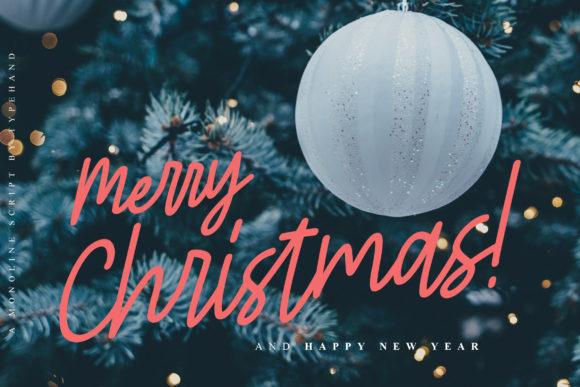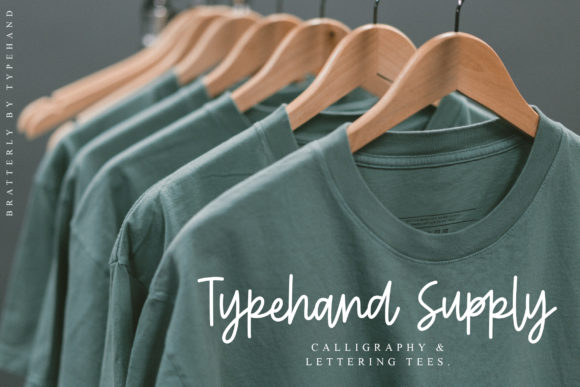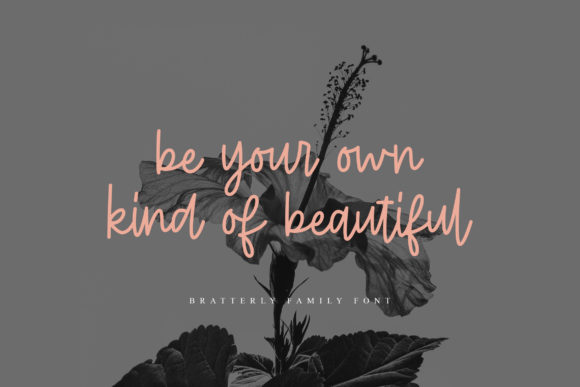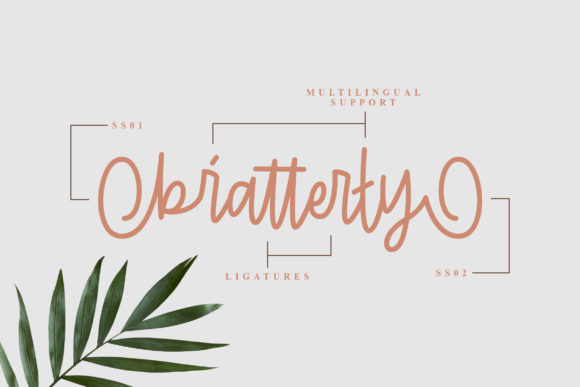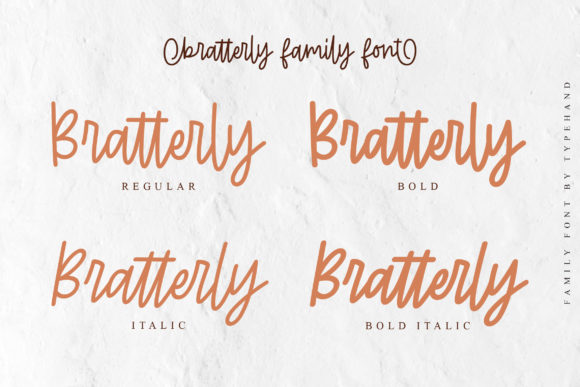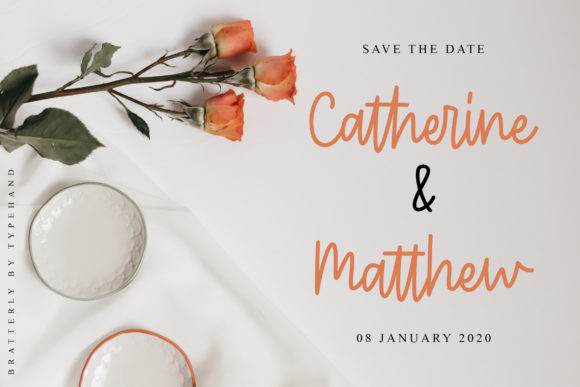
Discover the Charm of Bratterly Font: Elevate Your Designs with Authenticity
Are you tired of using the same old fonts in your designs? Look no further than Bratterly Font, a beautiful and simple script that radiates authenticity. With its unique look and feel, Bratterly is the perfect choice for designers and crafters looking to turn any design idea into a true standout. In this article, we’ll dive into the world of Bratterly Font, exploring its features, benefits, and uses, as well as provide tips and inspiration for incorporating it into your designs.
What is Bratterly Font?
Bratterly Font is a stunning script font that exudes elegance and sophistication. Its simple yet distinctive design makes it perfect for a wide range of applications, from branding and advertising to packaging and digital media. With its flowing lines and organic feel, Bratterly Font is sure to capture the attention of your audience and leave a lasting impression.
The Unique Look of Bratterly Font
So, what sets Bratterly Font apart from other fonts? For starters, its unique look is characterized by its flowing script style, which gives it a sense of movement and fluidity. The font’s letters are carefully crafted to create a sense of continuity and flow, making it perfect for use in designs where you want to convey a sense of elegance and refinement.
Benefits of Using Bratterly Font
There are many benefits to using Bratterly Font in your designs. Here are just a few:
- Authenticity: Bratterly Font radiates authenticity, making it perfect for brands and businesses looking to establish a genuine connection with their audience.
- Versatility: Bratterly Font is incredibly versatile, making it suitable for use in a wide range of applications, from digital media to print materials.
- Elegance: The font’s elegant design makes it perfect for use in designs where you want to convey a sense of sophistication and refinement.
Using Bratterly Font in Your Designs
So, how can you use Bratterly Font in your designs? Here are a few tips and ideas to get you started:
- Pair it with bold colors: Bratterly Font looks stunning when paired with bold, bright colors. Try using it in combination with a bold color scheme to create a striking design.
- Use it for headings: Bratterly Font is perfect for use in headings and titles, where its elegant design can really shine.
- Experiment with different sizes: Don’t be afraid to experiment with different font sizes to create visual interest and hierarchy in your designs.
Inspiration for Your Designs
Need some inspiration for your designs? Here are a few ideas to get you started:
- Wedding designs: Bratterly Font is perfect for use in wedding designs, such as invitations, programs, and decorations.
- Branding and advertising: The font’s elegant design makes it perfect for use in branding and advertising, where you want to establish a sophisticated and refined image.
- Packaging design: Bratterly Font looks stunning on packaging, adding a touch of elegance and sophistication to any product.
In conclusion, Bratterly Font is a beautiful and simple script that radiates authenticity. With its unique look and feel, it’s the perfect choice for designers and crafters looking to turn any design idea into a true standout. Whether you’re looking to create a stunning wedding design, a sophisticated brand identity, or a eye-catching packaging design, Bratterly Font is the perfect choice. So why not give it a try and see the difference it can make in your designs?